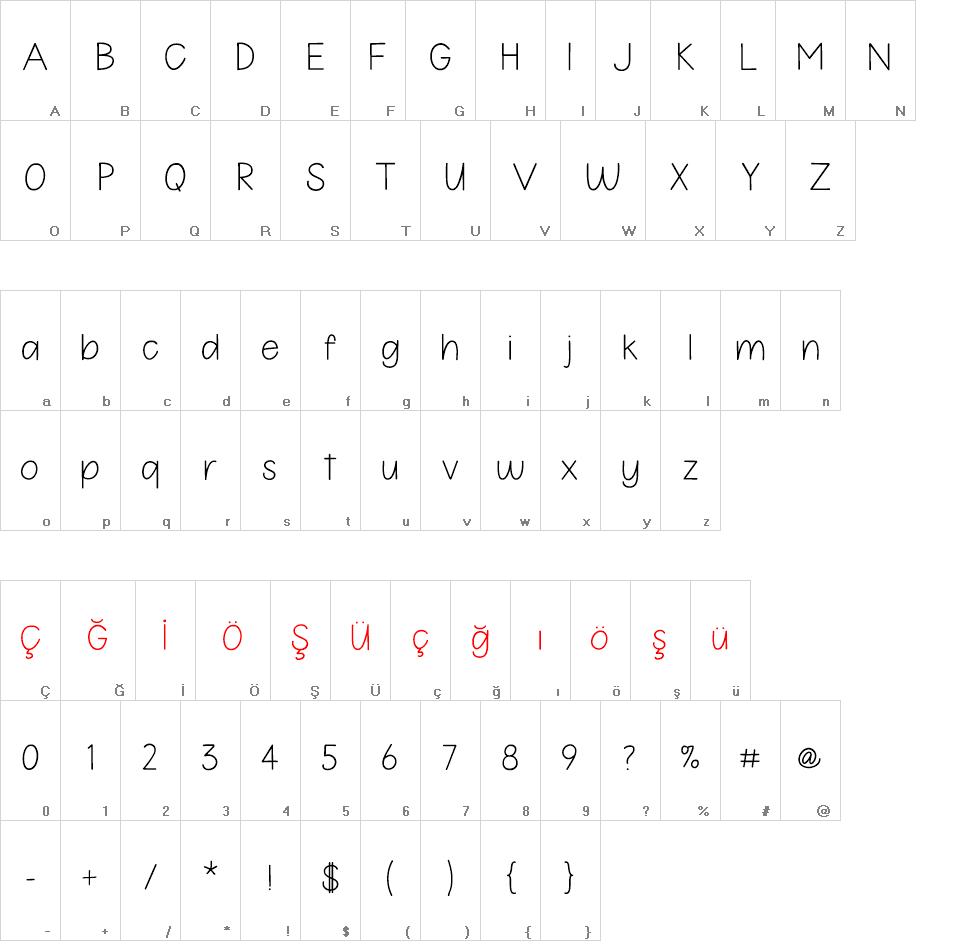
Orion Sans | Font font
Orion Sans is a bubbly, feminine sans serif that is free for personal use. Get the commercial license for $6 at http://www.212fonts.com